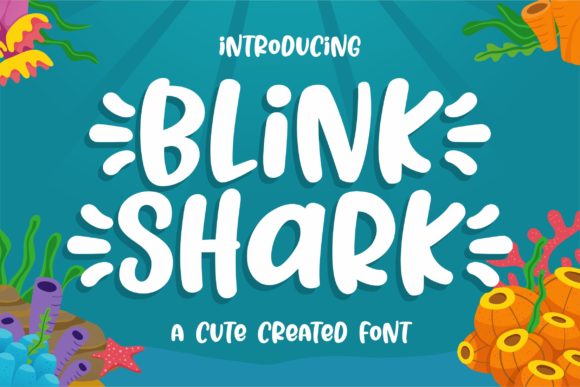
Blink Shark: A Stylish Display Typeface for Modern Designs
Imagine a font that feels like a friendly conversation but looks like a million-dollar design. That’s the unique appeal of Blink Shark, a stylish display typeface designed to bring warmth and character to any creative project. Its casual charm makes it appear wonderfully down-to-earth, readable, and, ultimately, incredibly versatile. Whether you're crafting a bold headline for a poster or designing a memorable logo, Blink Shark offers a blend of personality and professionalism that’s hard to find.
At its core, Blink Shark is a premium font built for impact. As a display typeface, it excels in situations where you need text to stand out and convey a specific mood. Unlike rigid sans serif fonts or overly formal serif fonts, Blink Shark strikes a perfect balance. It has the approachability of a handwritten font but with the clarity and structure needed for modern typography. This makes it an excellent choice for projects where you want to connect with your audience on a human level without sacrificing readability.
Where Blink Shark Truly Shines
Think about the last time a design caught your eye. Often, it’s the typography that sets the tone. Blink Shark is particularly effective in applications where personality and style are key. Consider using it for:
Practical Tips for Using This Creative Font
Choosing the right typeface is just the first step; using it effectively is what makes a design polished. Here are a few actionable tips for working with Blink Shark:
Investing time in selecting a high-quality typeface like Blink Shark pays dividends in the long run. The right font does more than just display words; it builds visual consistency, strengthens brand recognition, and elevates the overall professional presentation of your work. It’s a fundamental design asset that can transform a good project into a great one. By choosing a typeface that aligns with your creative vision, you lay a stronger foundation for all your visual communications.